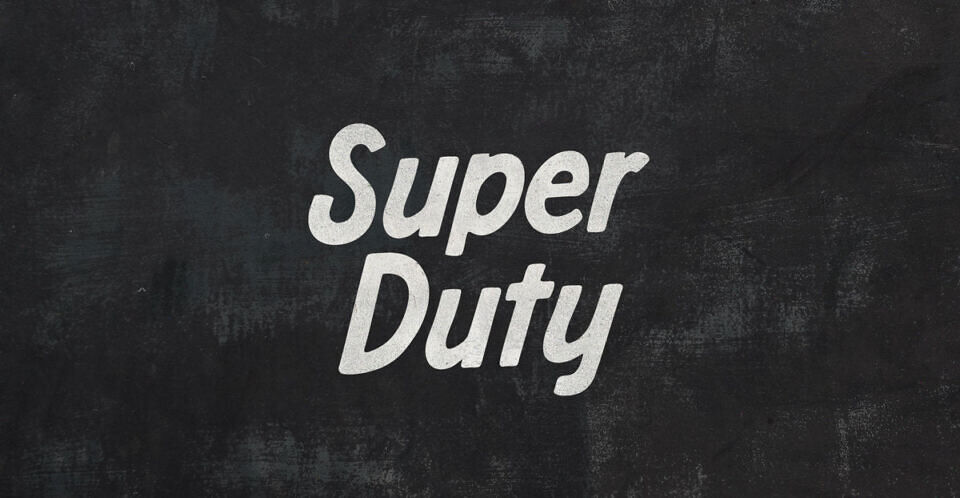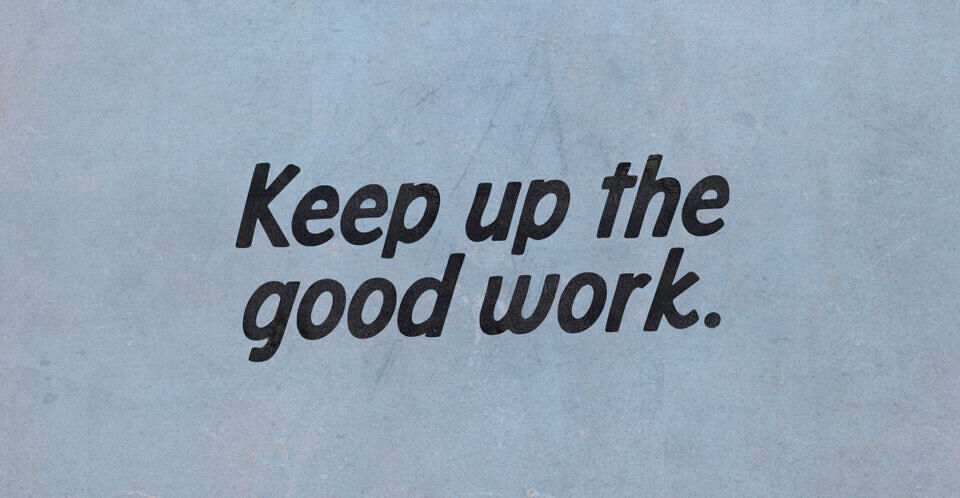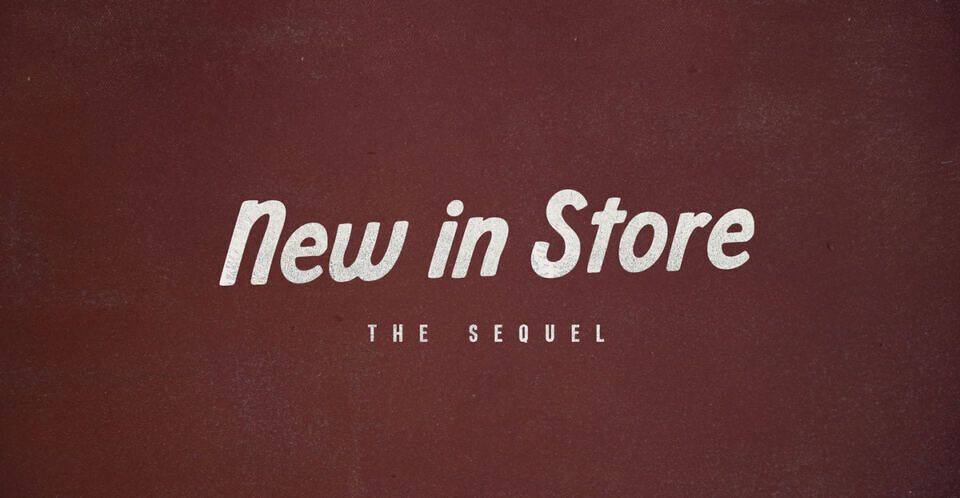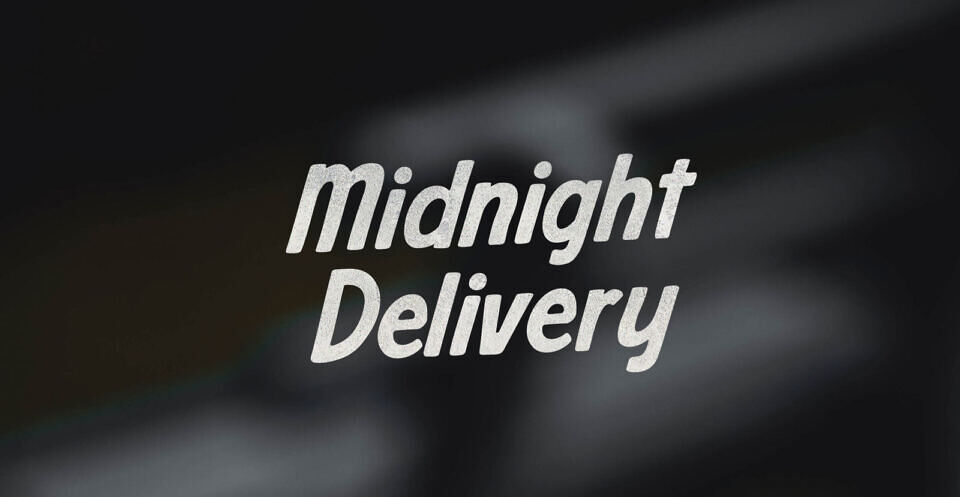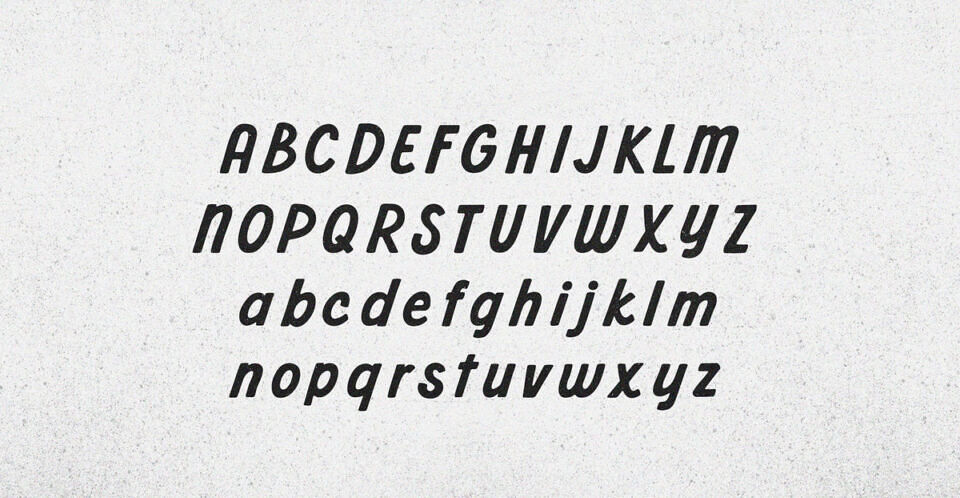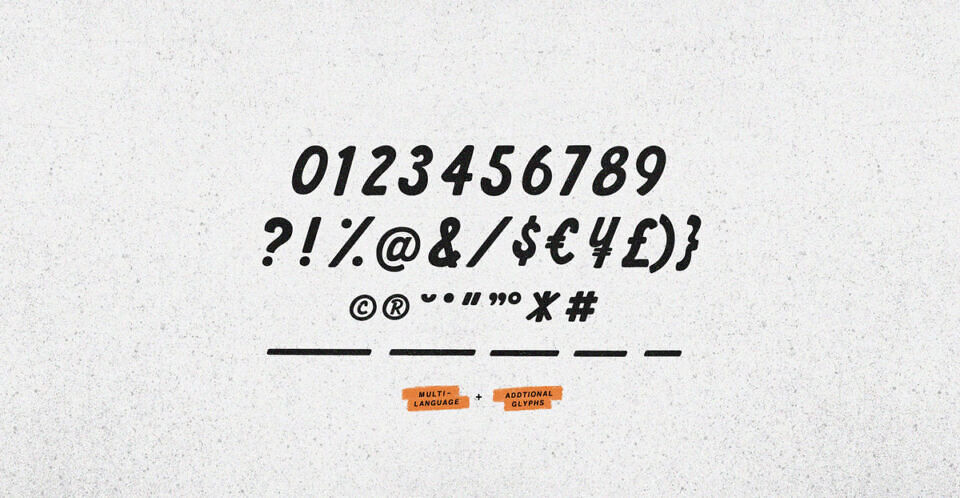
Super Duty Font is a bold, versatile typeface designed with a rugged, industrial aesthetic. Featuring a strong, slightly condensed letterform, it exudes a gritty, handcrafted charm with a touch of retro flair.
Its uppercase and lowercase characters, along with numbers and an array of punctuation marks, showcase a consistent, robust stroke width that ensures readability and impact. The font includes multi-language support and additional glyphs, adding to its flexibility. With a textured, weathered appearance, it’s perfect for headlines, posters, or any design needing a powerful statement.